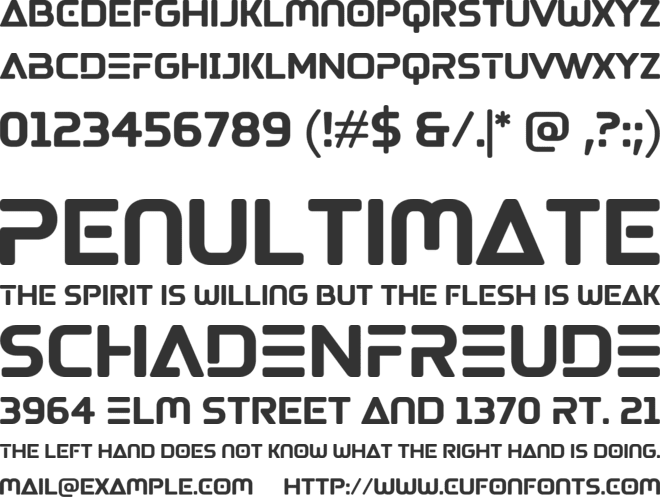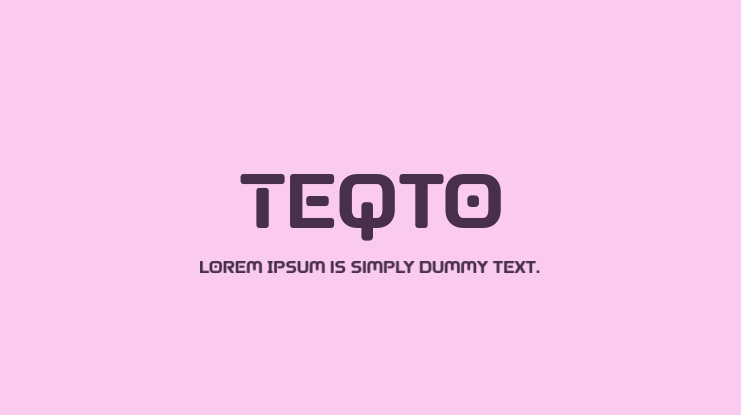
Teqto Font
It’s a futuristic typeface inspired by science fiction movies and books. Offering all the basic styles you will need for a successful project. This font is suitable for various purpose such as movies, posters, logos, labels, webfont and any modern purposes.